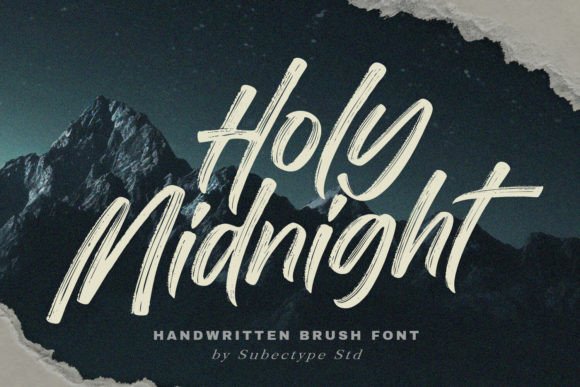
Introducing Holy Midnight Font, the ultimate choice for those seeking a Font For Clothing that will truly make a statement! Created by Subectype, this remarkable handwritten brush font is designed to captivate and inspire. With its versatile nature, Holy Midnight can effortlessly convey a wide range of emotions, from a relaxed and friendly vibe to an artistic and eccentric feel.
When it comes to making a lasting impression, Holy Midnight is your secret weapon. Its unique brush strokes and handcrafted design add a touch of authenticity and personality to any project. Whether you're designing a logo, crafting powerful quotes, or creating stunning product packaging, this font will give your message a typographic turbo-boost, making it visually engaging and deeper in its impact.
The beauty of Holy Midnight lies in its ability to evoke emotions and tell a story. Its fluid curves and varied line weights give your text a sense of movement, creating a visually pleasing experience for your audience. Imagine your clothing brand's name written in Holy Midnight, instantly elevating it to new heights of style and sophistication.
But Holy Midnight isn't just about looks. It's also about functionality and ease of use. This font is designed to be user-friendly, allowing you to effortlessly incorporate it into your designs. Whether you're a seasoned designer or a novice, Holy Midnight's intuitive nature ensures a seamless and enjoyable creative process.
Let's talk about the impact Holy Midnight can have on your brand. By choosing this font, you're not just getting a stylish addition to your design toolkit; you're also making a statement about your brand's values. Holy Midnight exudes creativity, passion, and a desire to stand out from the crowd. It's the perfect choice for those who dare to be different and want to leave a lasting impression on their audience.
Don't settle for ordinary fonts when you can have something extraordinary. Holy Midnight Font is a game-changer that will elevate your designs, attract attention, and leave a lasting impression. It's time to unleash your creativity and let Holy Midnight be your partner in design excellence.